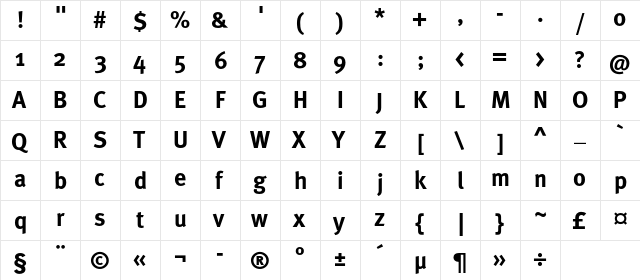
MetaBoldC Regular
Design Context for MetaBoldC Typeface
MetaBoldC offers clean, dependable letterforms without strong stylistic allegiance, making it a practical choice for designers who need flexibility. The heavy weight commands attention and anchors typographic hierarchies.